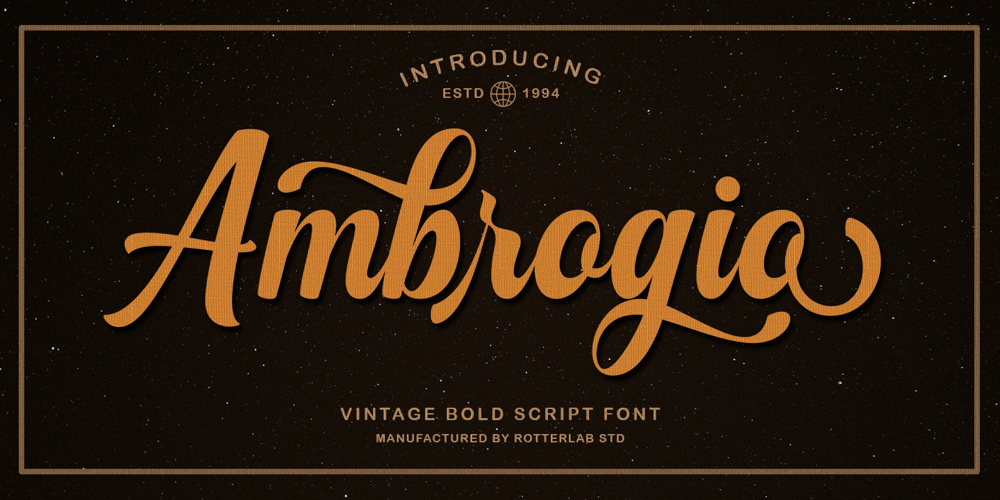
Ambrogio Font Family was designed by Sidiq Fahmi and published by Rotterlab Studio. Ambrogio contains 1 styles and family package options. Ambrogio Script Inspired by Modern Vintage & Retro style and combination with old American traditional style.Ambrogio script that lets you handwrite. Ideal for logos, handwritten quotes, product packaging, headers, posters, merchandise, social media & greeting cards.Multilingual Support To enable the OpenType Stylistic alternative, you need a program that supports OpenType features such as Adobe Illustrator CS, Adobe Indesign & CorelDraw X6-X7.There are additional ways to access alternatives, using the Character Map (Windows), Nexus Font (Windows), Font Book (Mac) or a software program such as PopChar (for Windows and Mac).Thank you !